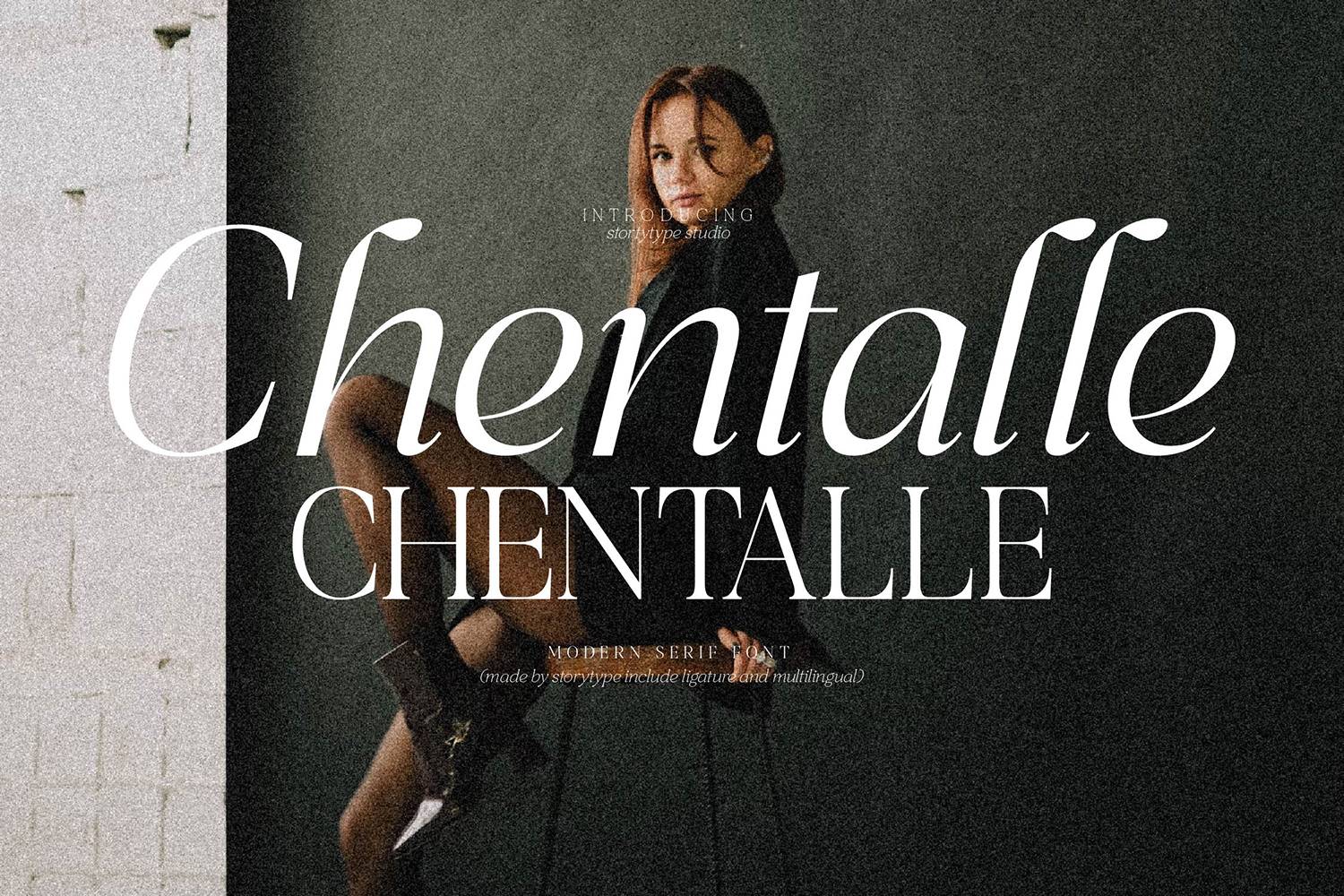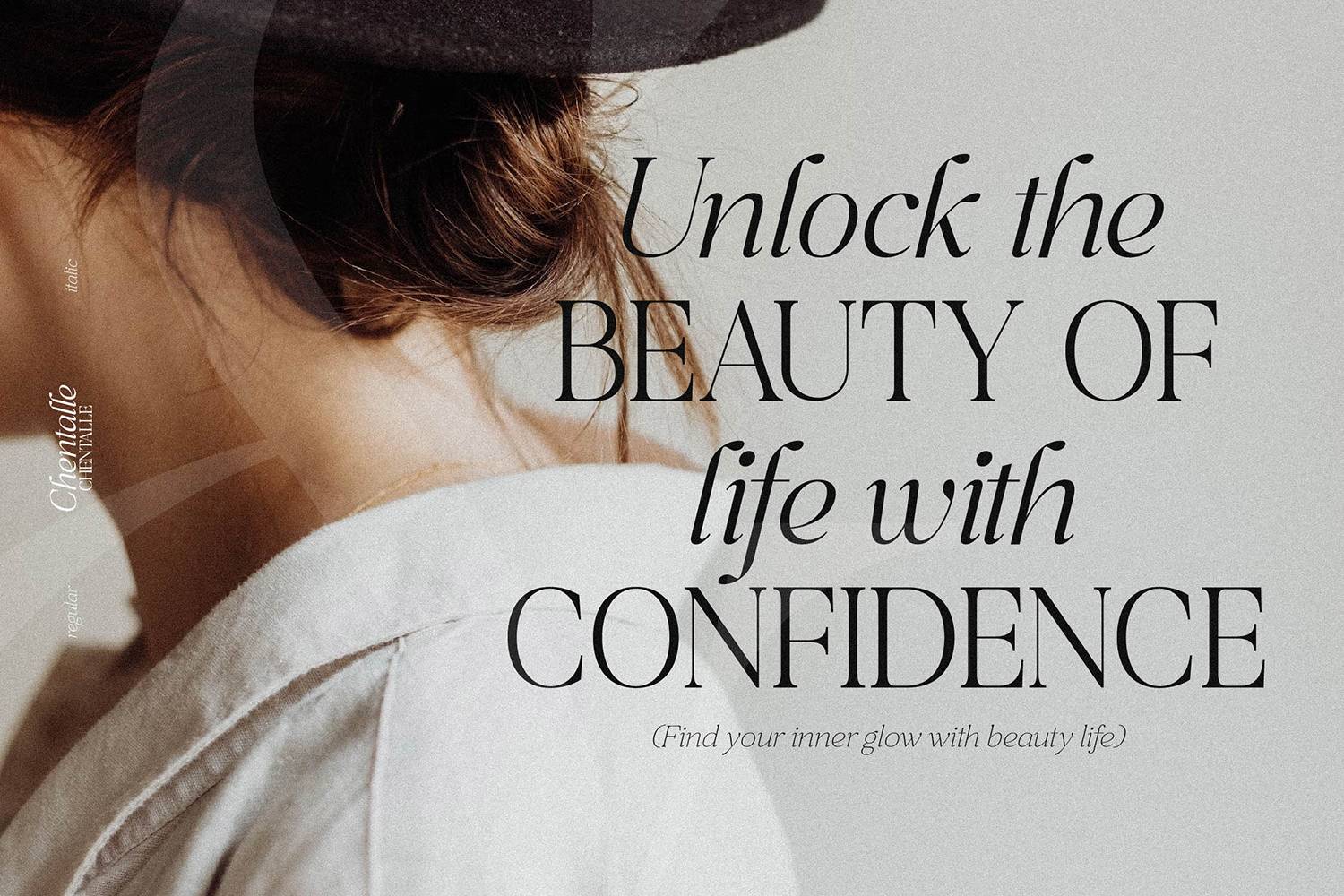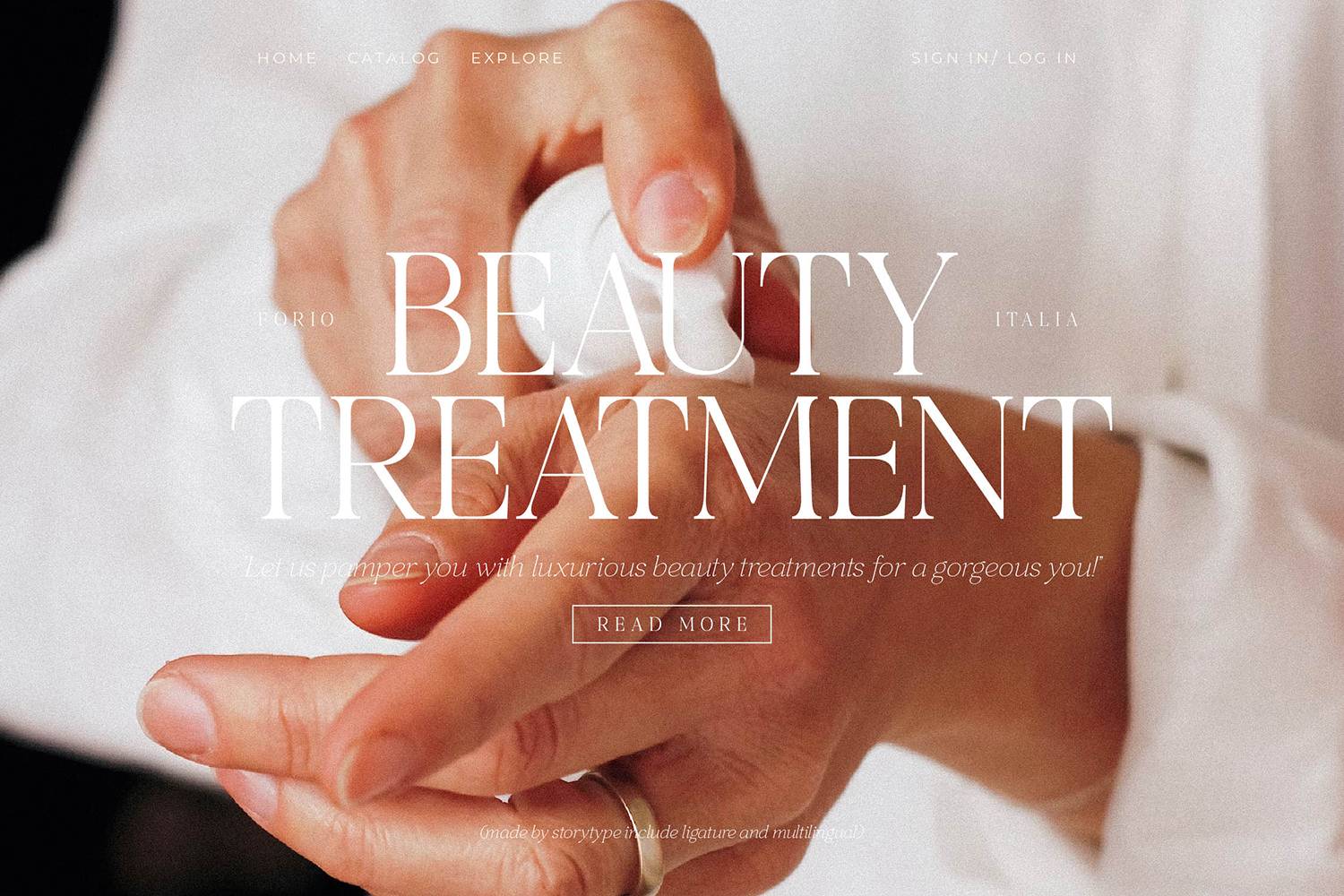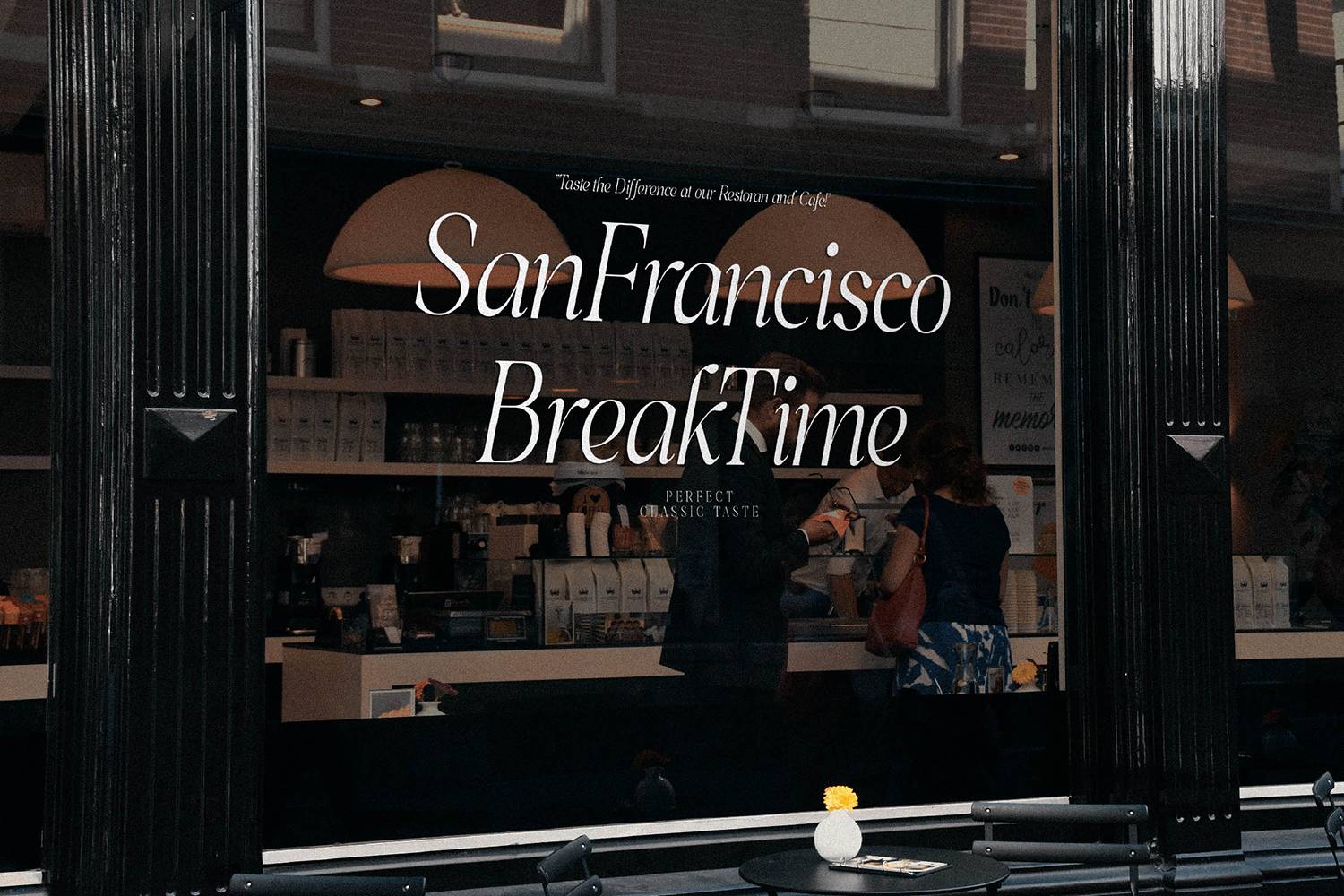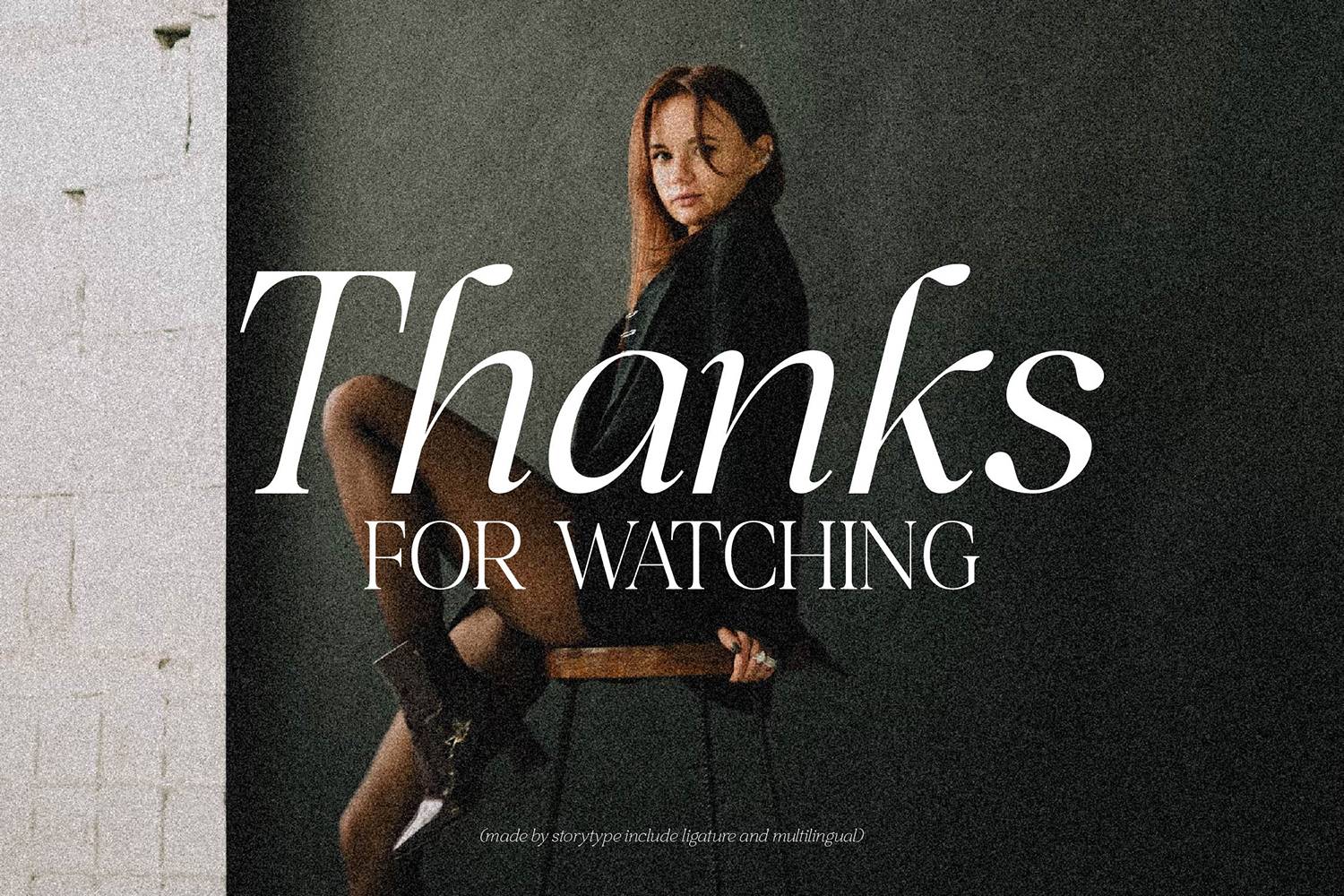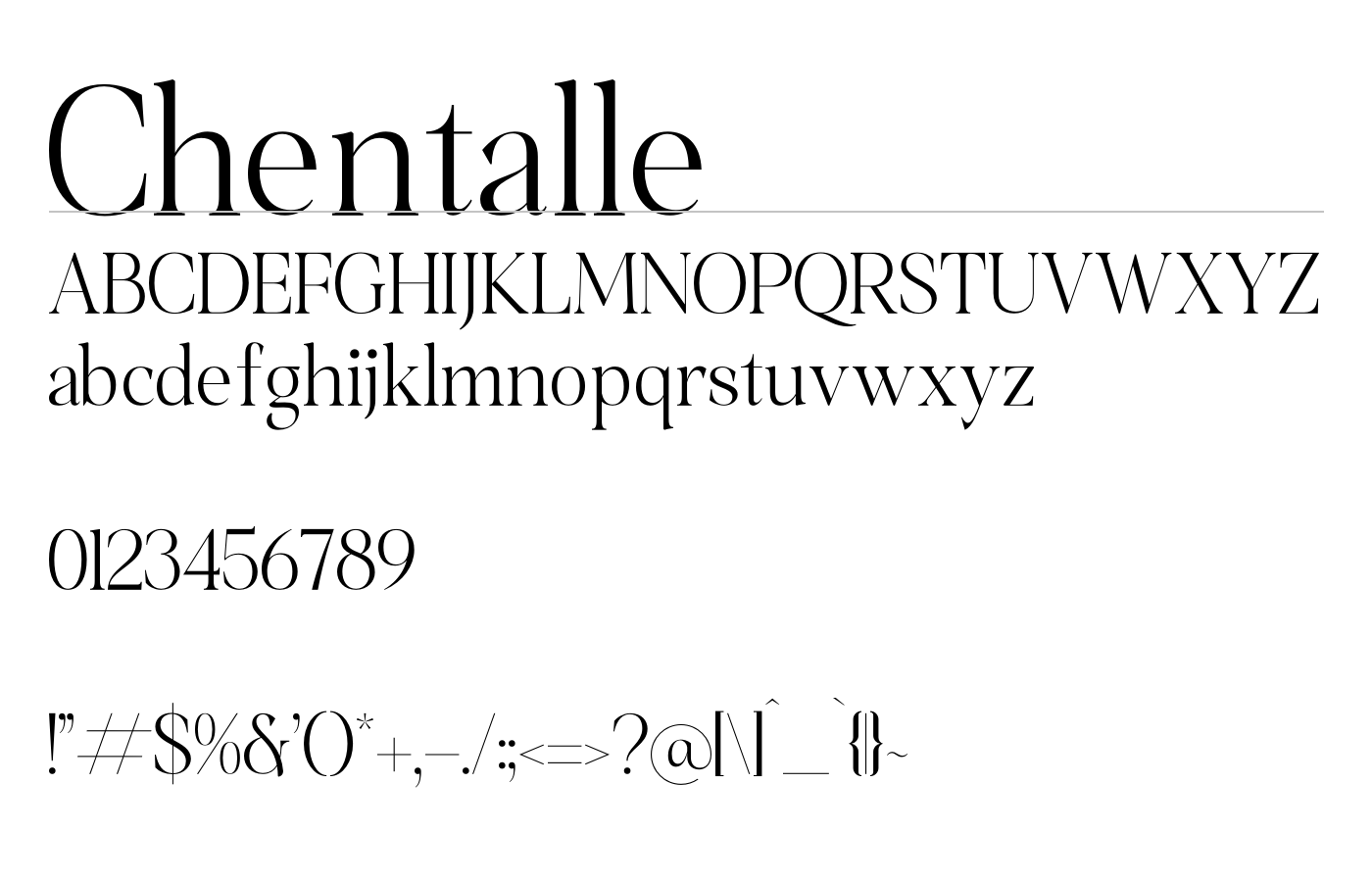
Chentalle is a refined serif font characterized by its elegant and delicate strokes, featuring a high contrast between thick and thin lines. Its slender letterforms and finely tapered serifs create a sophisticated, classic feel, making it ideal for luxury branding, editorial headlines, and upscale packaging where a stylish and graceful impression is desired. This font’s timeless charm suits projects aiming to convey elegance and refinement with a modern twist.
Chentalle Font
About Chentalle Font